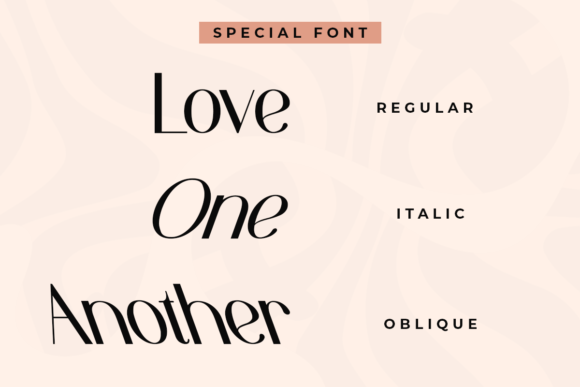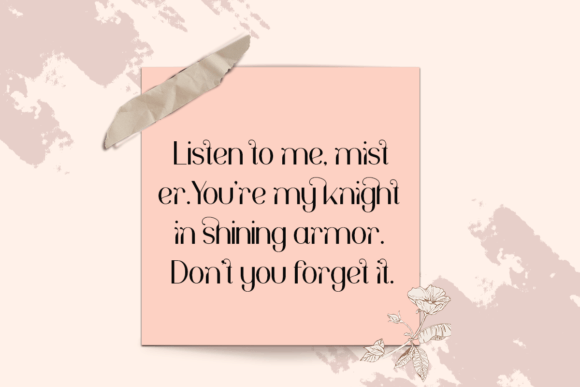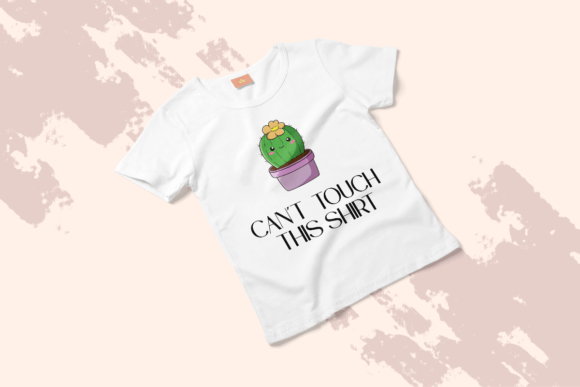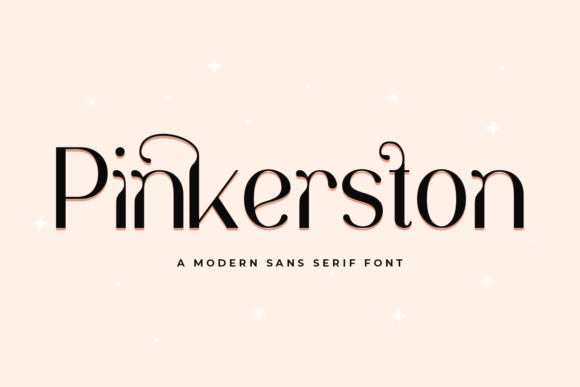
Introduction to Pinkerston Font
Pinkerston is a luxurious and elegant sans serif font perfect for branding, logos, invitations, long text, and more.
Add it to any of your creative projects, and it will bring it to life with its perfect style and shape This font is PUA encoded.
Key Features of Pinkerston Font
Why Choose Pinkerston Font?
Pinkerston Font offers exceptional quality and versatility, making it a valuable addition to your design toolkit. Whether you’re creating for personal projects or commercial use, Pinkerston Font delivers professional results.